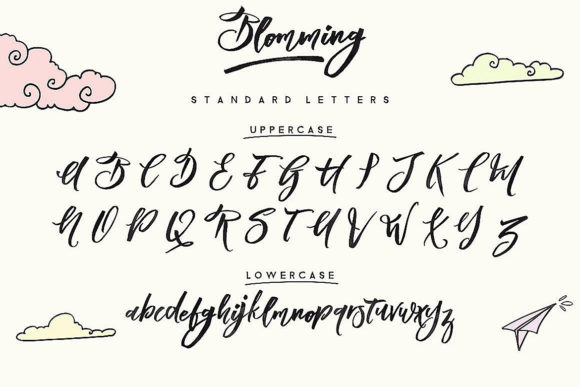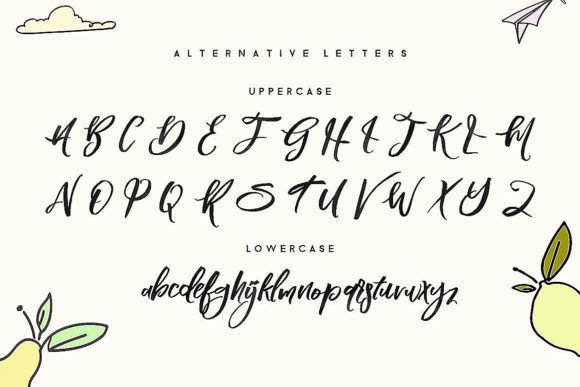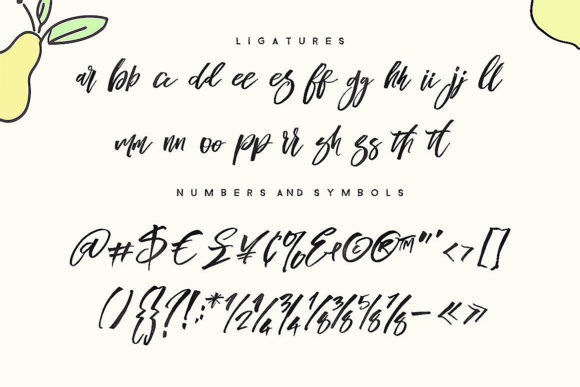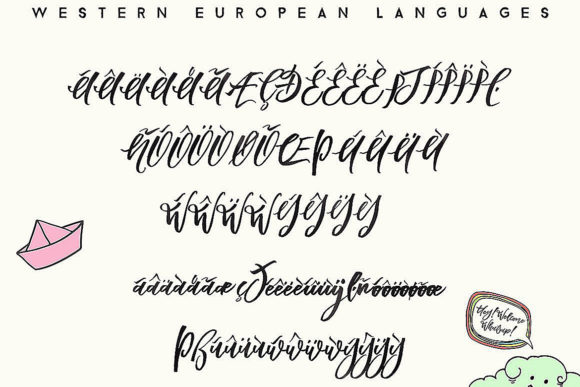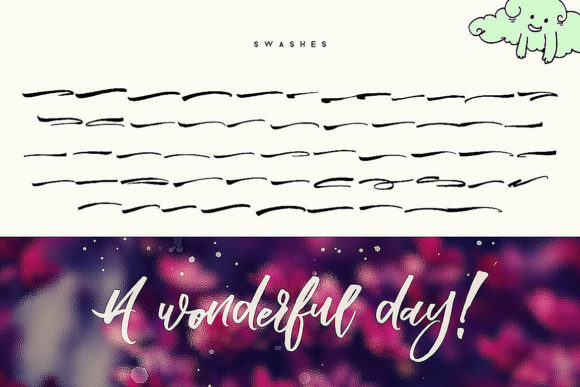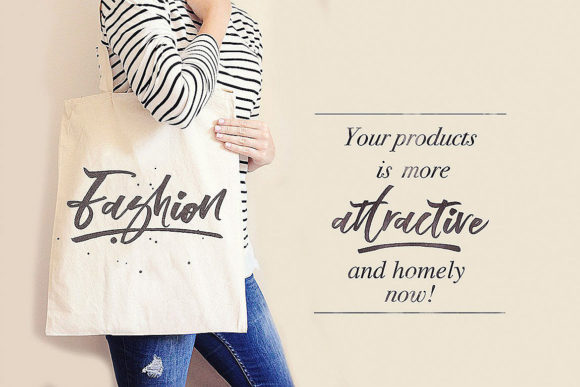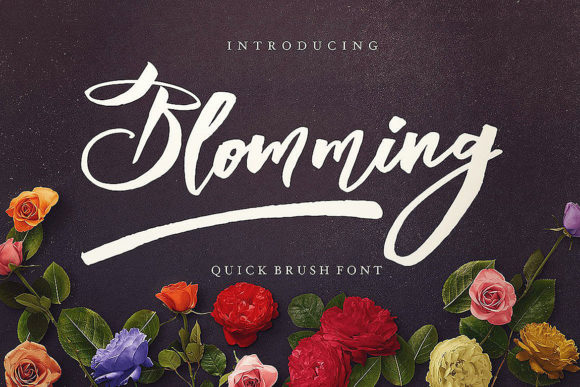
Introducing Blomming Font: The Ultimate Handwritten Brush Font for Grunge and Artistic Projects
Are you a designer or crafter looking for a unique and stylish font to elevate your creative projects? Look no further than Blomming Font, a cool handwritten brush font that’s perfect for grunge and artistic endeavors. With its great readability and charming aesthetic, Blomming Font is sure to become your go-to choice for adding a personal touch to your designs.
What Makes Blomming Font So Special?
Blomming Font is a carefully crafted handwritten brush font that boasts a distinctive, organic look. Its unique blend of bold and delicate strokes creates a captivating visual effect that’s sure to grab attention. Whether you’re working on a grunge-inspired project or an artistic endeavor, Blomming Font’s versatility and charm make it an excellent choice.
Key Features of Blomming Font
- Great Readability: Despite its bold and artistic nature, Blomming Font remains highly readable, making it perfect for use in a variety of applications, from headlines and titles to body text and captions.
- Handwritten Brush Style: Blomming Font’s handwritten brush style gives it a personal, human touch that’s perfect for adding a touch of warmth and personality to your designs.
- Grunge and Artistic Appeal: Blomming Font’s bold, expressive strokes and organic feel make it a natural fit for grunge and artistic projects, adding a touch of edginess and sophistication.
- Versatility: Blomming Font can be used in a wide range of applications, from digital designs and print materials to handmade crafts and DIY projects.
How to Use Blomming Font in Your Projects
Blomming Font is incredibly easy to use and can be incorporated into your projects in a variety of ways. Here are a few ideas to get you started:
- Pair it with Other Fonts: Combine Blomming Font with other fonts to create a unique and eye-catching visual effect. Try pairing it with a clean, sans-serif font for a bold and modern look.
- Use it for Headlines and Titles: Blomming Font’s bold, expressive strokes make it perfect for use in headlines and titles. Use it to add a touch of drama and flair to your designs.
- Add it to Your Digital Designs: Blomming Font can be used in a variety of digital designs, from social media graphics and blog posts to email newsletters and website headers.
- Incorporate it into Your Handmade Crafts: Blomming Font can also be used in handmade crafts, such as journaling, scrapbooking, and card making. Add a personal touch to your crafts with this beautiful, handwritten brush font.
Why Designers and Crafters Love Blomming Font
Blomming Font has quickly become a favorite among designers and crafters, and for good reason. Here are just a few reasons why:
- Unique and Eye-Catching: Blomming Font’s distinctive, handwritten brush style makes it a standout in any design. Its bold, expressive strokes add a touch of drama and flair to any project.
- Easy to Read: Despite its bold nature, Blomming Font remains highly readable, making it perfect for use in a variety of applications.
- Versatile: Blomming Font can be used in a wide range of projects, from digital designs and print materials to handmade crafts and DIY projects.
- High-Quality: Blomming Font is a high-quality font that’s designed to deliver exceptional results. Its careful craftsmanship and attention to detail make it a joy to use.
In conclusion, Blomming Font is a cool handwritten brush font that’s perfect for grunge and artistic projects. With its great readability, charming aesthetic, and versatility, it’s an excellent choice for designers and crafters looking to add a personal touch to their designs. Whether you’re working on a digital design, print material, or handmade craft, Blomming Font is sure to become your go-to choice for adding a touch of style and sophistication.